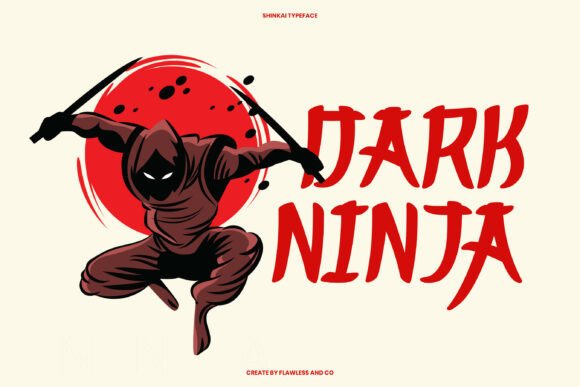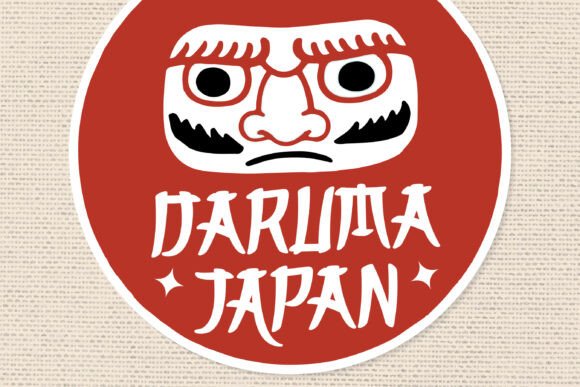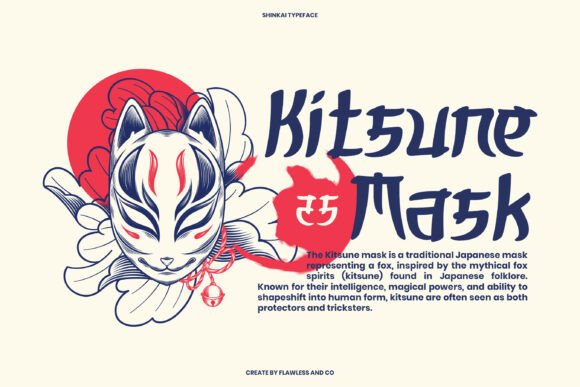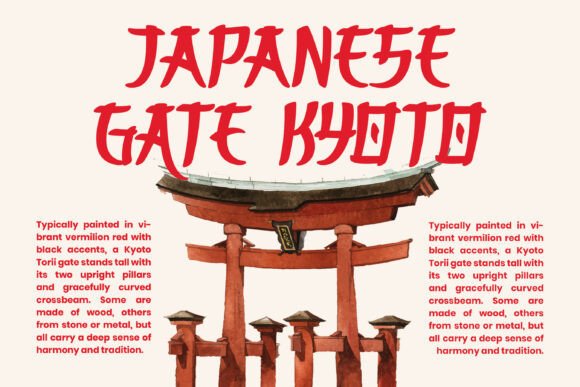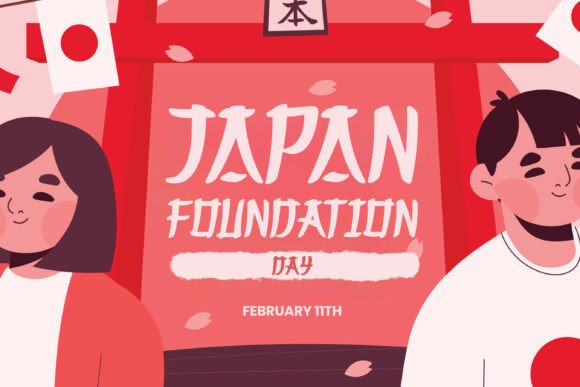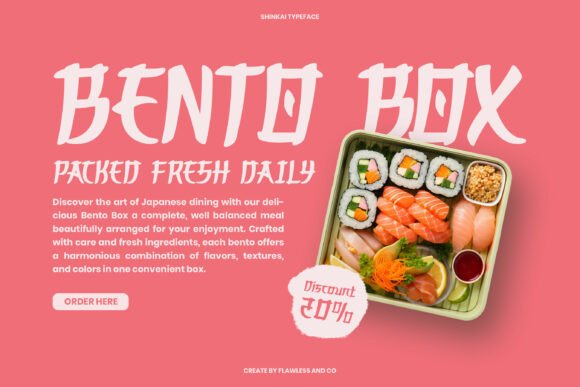
Introduction to Shinkai Font
Imagine you’re strolling through a bustling Tokyo market, surrounded by vibrant colors and intricate patterns. The sound of vendors calling out their daily specials fills the air, and the scent of fresh sushi wafts through the crowds. As you take in the sights and sounds, your eyes land on a beautifully designed poster advertising a new restaurant. The bold, high-quality font grabs your attention, and you can’t help but feel drawn to the creative project.
That’s the magic of the Shinkai Font – a bold Japanese-style typeface that seamlessly blends tradition and modern flair. This versatile design resource is perfect for designers looking to add a touch of cultural depth to their creative projects. Whether you’re working on a branding campaign, creating menus for a new restaurant, or designing posters for a themed event, Shinkai Font is an excellent choice.
Key Features of Shinkai Font
- High-quality, hand-drawn design resource suitable for various creative projects.
- Includes a range of characters, including uppercase and lowercase letters, numbers, and special characters.
- Designed with a unique, dreamy aesthetic, making it perfect for artistic and creative projects.
- High-resolution font, suitable for use in various sizes, from small text to large headings.
Honest Review: Shinkai Font
As a designer, I’m always on the lookout for high-quality design resources to elevate my creative projects. Recently, I stumbled upon the Shinkai Font, and I’m excited to share my honest review with you.
What works well: ✨ The Shinkai Font has a beautiful, delicate design that’s perfect for creating a sense of elegance and sophistication in your projects. It’s a free download, which is a huge plus for designers on a budget. I also appreciate the transparent background, which makes it easy to use as a overlay or element in your designs.
- Beautiful, delicate design
However, there are some limitations: ⚠️ The font is quite limited in terms of styles and weights, which may not be suitable for designers who need a wide range of options. Additionally, the font may not be as readable in smaller sizes or at high resolutions.
Overall, I think the Shinkai Font is a great addition to any designer’s toolkit, especially for projects that require a touch of elegance and sophistication. While it has some limitations, its unique design and free download make it a worthwhile resource to have in your arsenal.
Tips for Getting the Most Out of Shinkai Font
For optimal results, use the Shinkai Font in conjunction with other high-quality design resources. Experiment with different font sizes, colors, and combinations to achieve a unique look. Consider using the font with a transparent background to create a striking visual effect.
The Shinkai Font is ideal for use in creative projects, such as infographics, presentations, and social media graphics. Its high quality and unique design make it a popular choice among designers and artists looking for a distinctive font to enhance their work.